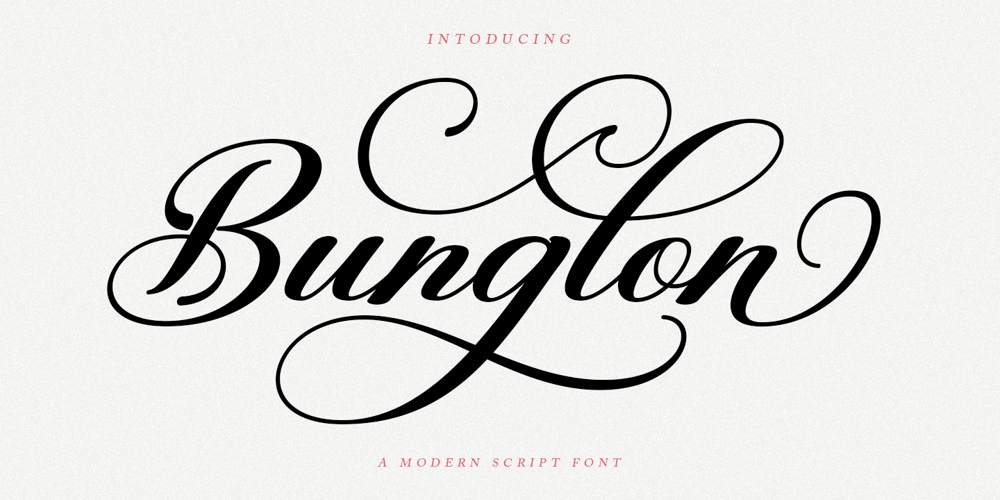
Bunglon Script Font Family was designed by Has Rizal and published by Hrz Studio. Bunglon Script contains 1 styles and family package options. Bunglon Script is a modern calligraphy design, including Regular. This font is casual and beautiful with swash. Can be used for various purposes. such as logos, product packaging, wedding invitations, branding, headlines, signage, labels, signatures, book covers, posters, quotes, and more.If you need help or have questions, please let me know. I am happy to help 🙂 Thank you & Congratulations on Designing!